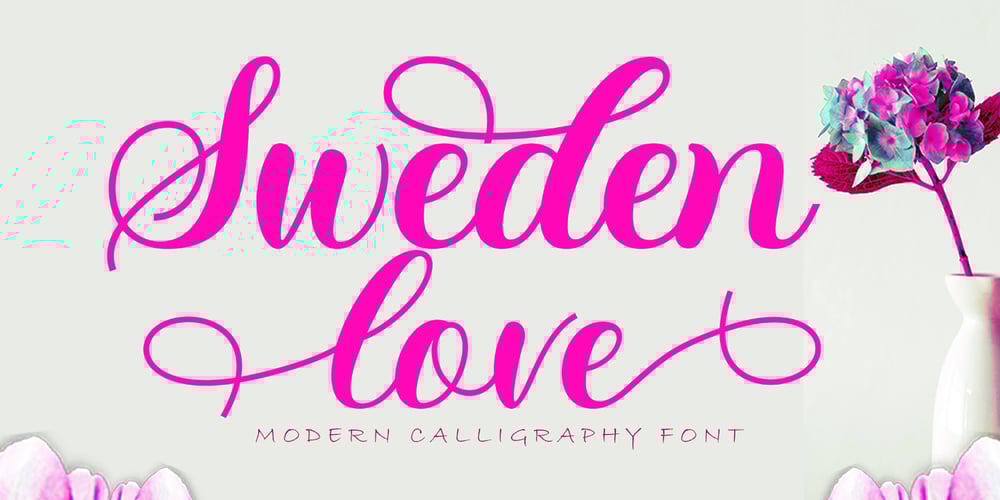
Sweden Love
Sweden Love font
Sweden Love Font Family was designed by khaidir and published by Gatype. Sweden Love contains 1 styles and family package options. Sweden Love is an elegant script font with a contemporary atmosphere and impeccable shapes, Neither too thin nor too thick balanced and varied. Sweden Love is designed to enhance the beauty of your project.These designs are used for branding, web and editorial design, print, crafts, quotes,It’s great for logos, wedding invitations, romantic cards, labels, packaging, name spelling and more. To enable the OpenType Stylistic alternative, you need a program that supports Adobe Illustrator CS, Adobe Indesign & CorelDraw X6-X7, Microsoft Word 2010 or a later version.How to access all alternative characters using Adobe Illustrator:https://www.youtube.com/watch?v=XzwjMkbB-wQ Sweden Love is coded with PUA Unicode, which allows full access to all additional characters without having to design any special software. Mac users can use Font Book, and Windows users can use Character Map to view and copy any additional characters for pasting into your favorite text editor / application.How to access all alternative characters, using the Windows Character Map with Photoshop:https://www.youtube.com/watch?v=Go9vacoYmBw